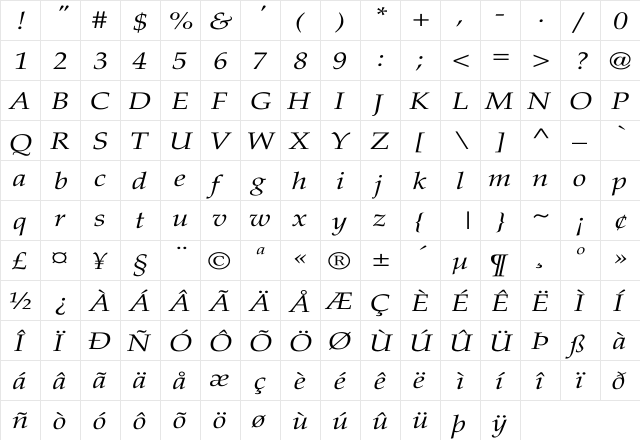
Palatino-Italic Wd Regular
Palatino-Italic Wd is a composed and adaptable typeface that performs quietly and consistently across a wide range of design contexts. Its italic angle brings a sense of urgency and motion to the letterforms.
Pro Tip: Use Palatino-Italic Wd for emphasis, pull quotes, and subheadings where its slanted energy can add rhythm to the layout.